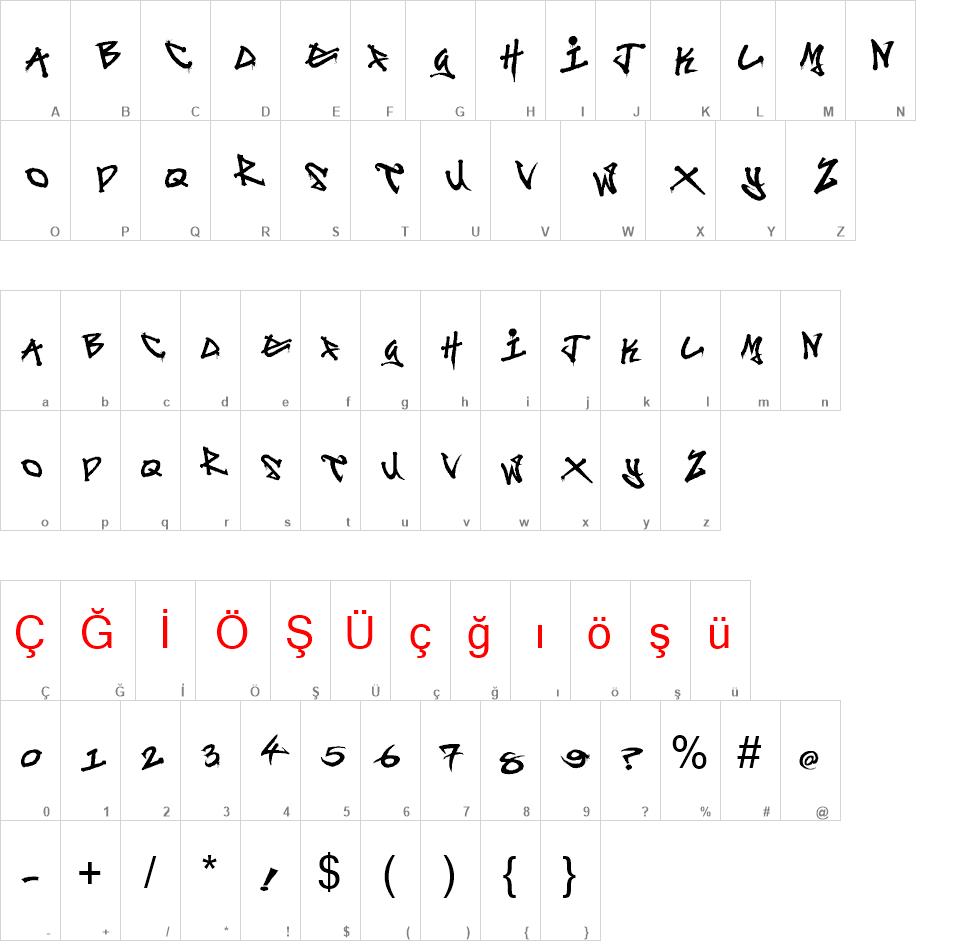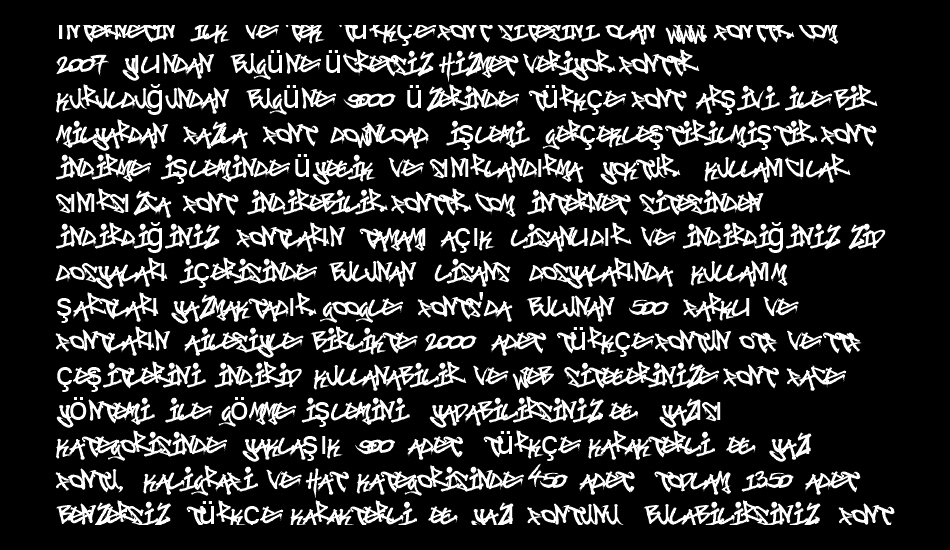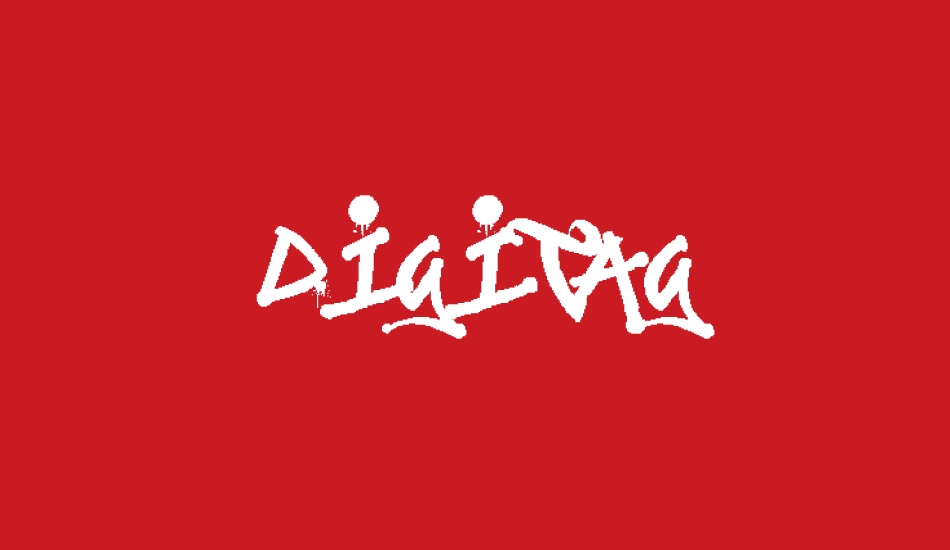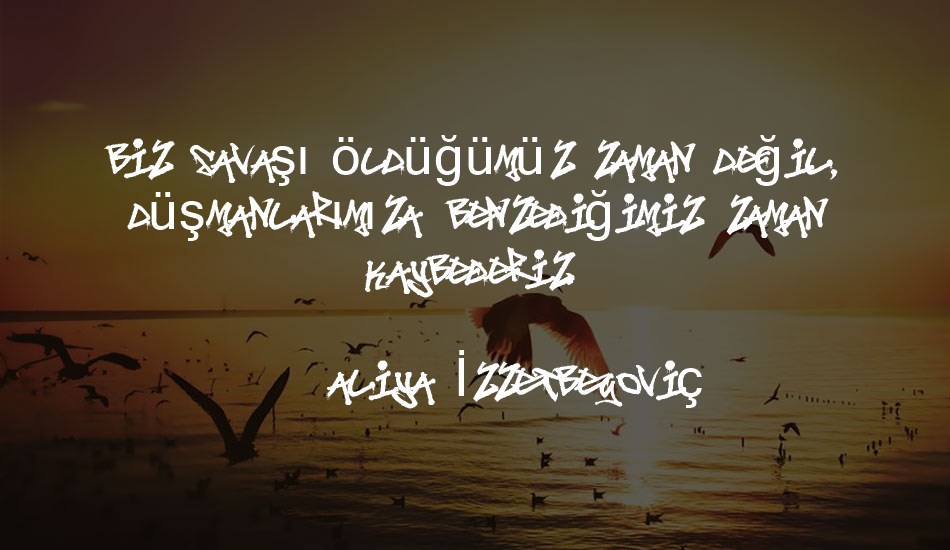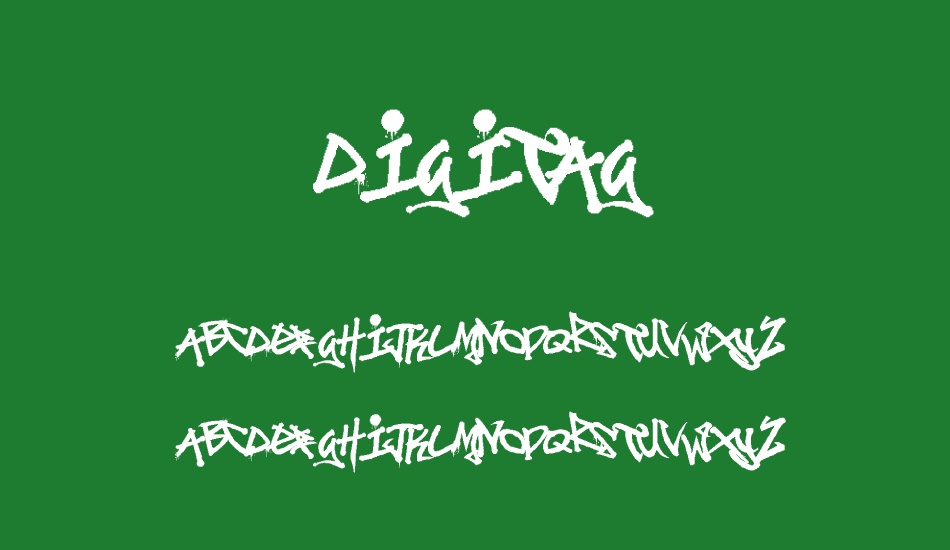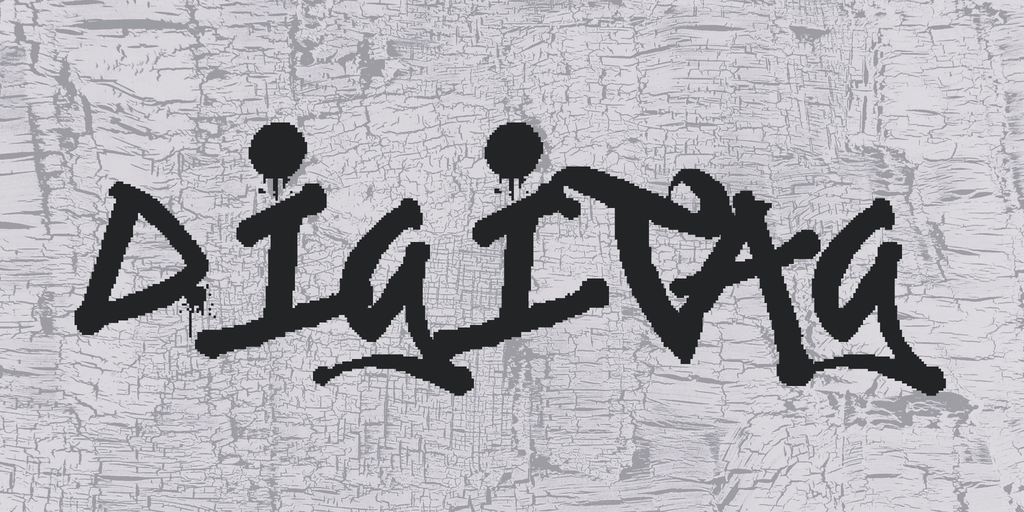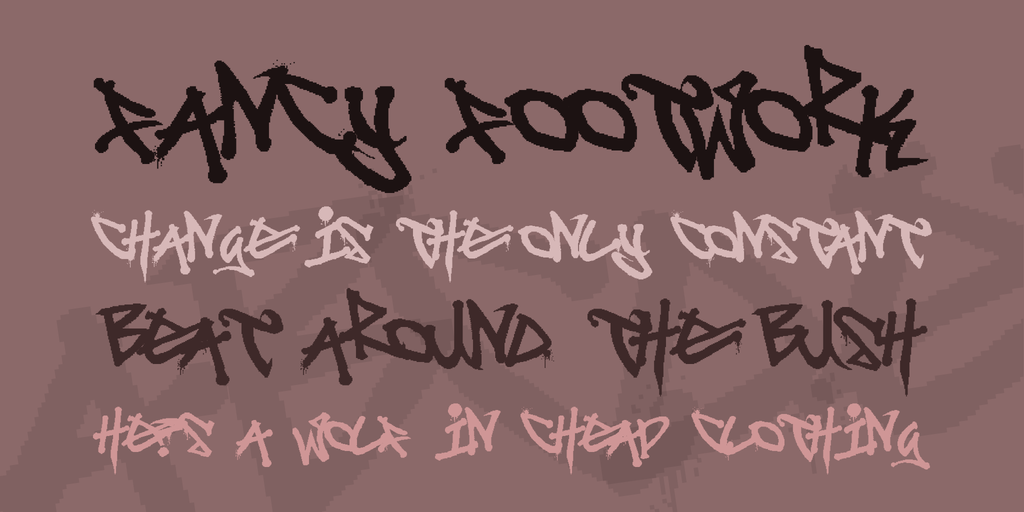
Digitag font
Digitag
I have always loved Grafitti and although impossible to capture the spontaneity of spraying the underpass or my neighbour's wall, here is a possible alternative!